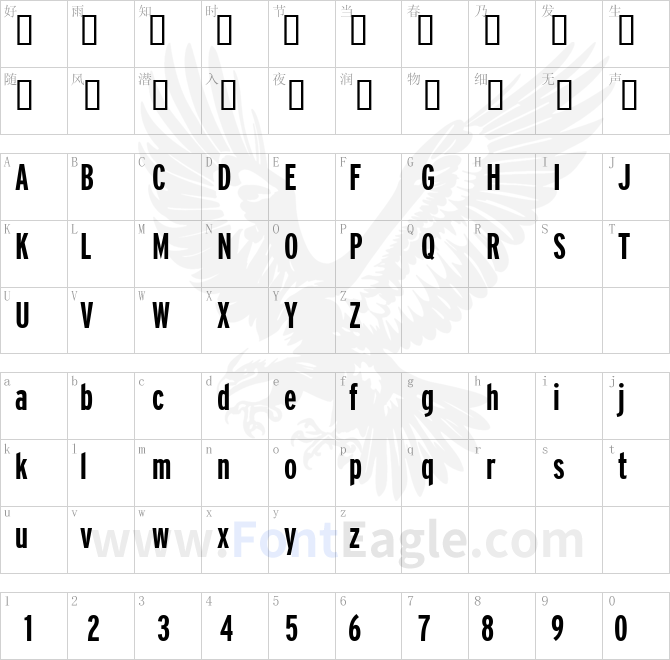
- Font name:Interstate
- Font Subfamily:BoldCompressed
- Font Subfamily ID:Macromedia Fontographer 4.1 Interstate BoldCompressed
- Font Full Name:Interstate BoldCompressed
- Font Version:Macromedia Fontographer 4.1 3/29/01
- Postscript:InterstateBoldCompressed
- Font Copyright:Copr. 1994, Tobias Frere-Jones. Designed by Tobias Frere-Jones. Produced by The Font Bureau, Inc.